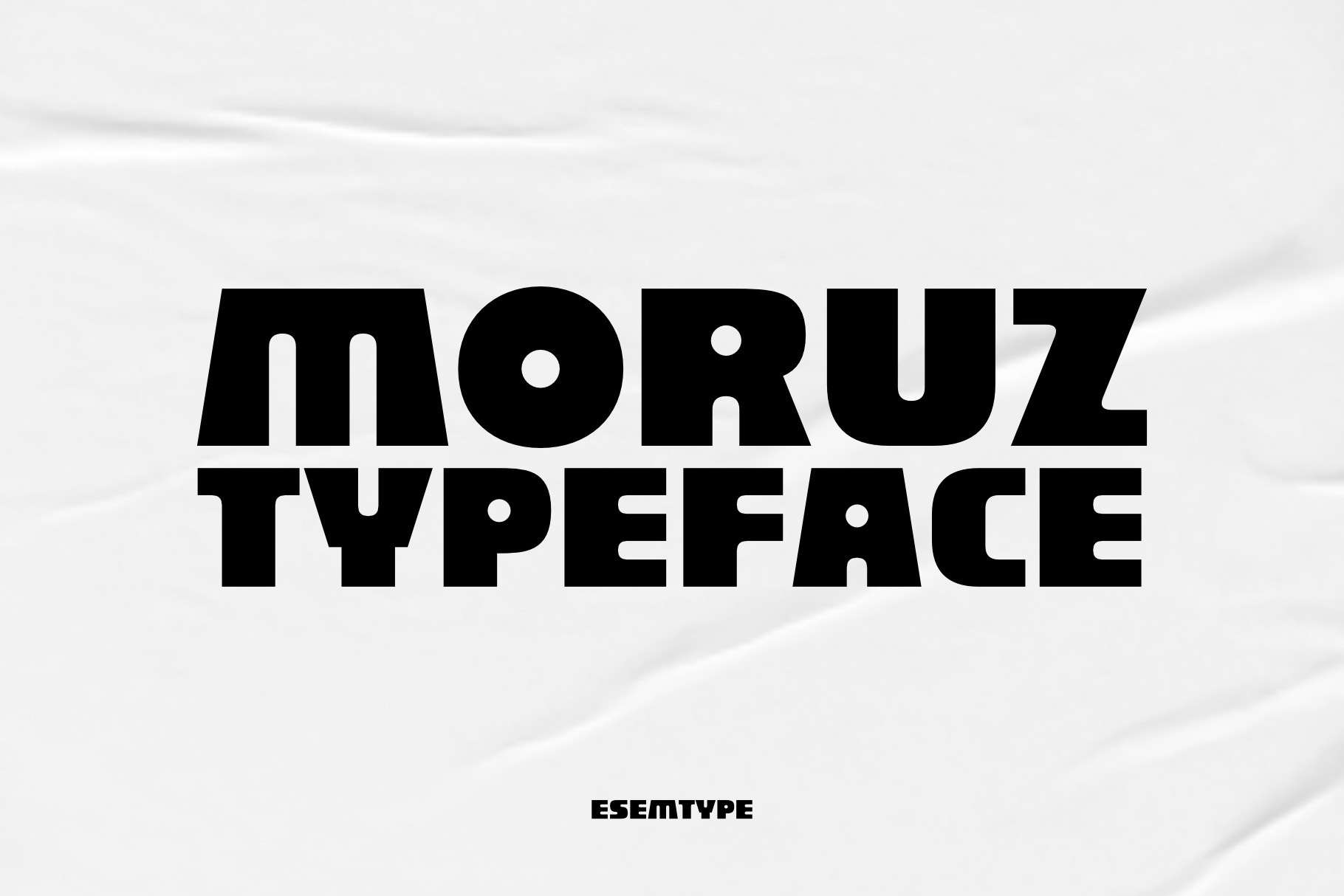
Moruz | Display Typeface | Two Style
MORUZ is a bold and expressive display typeface with a strong geometric structure. Inspired by retro aesthetics and modular shapes, it’s perfect for projects that demand attention – from posters and album covers to logos and advertising banners. The typeface comes in two styles: Regular and Filled, giving you creative flexibility.
2 styles: Regular & Filled
- Uppercase A–Z
- Numbers and special characters
- Perfect for headlines, posters, logos, and branding
- Retro-futuristic design with a powerful presence